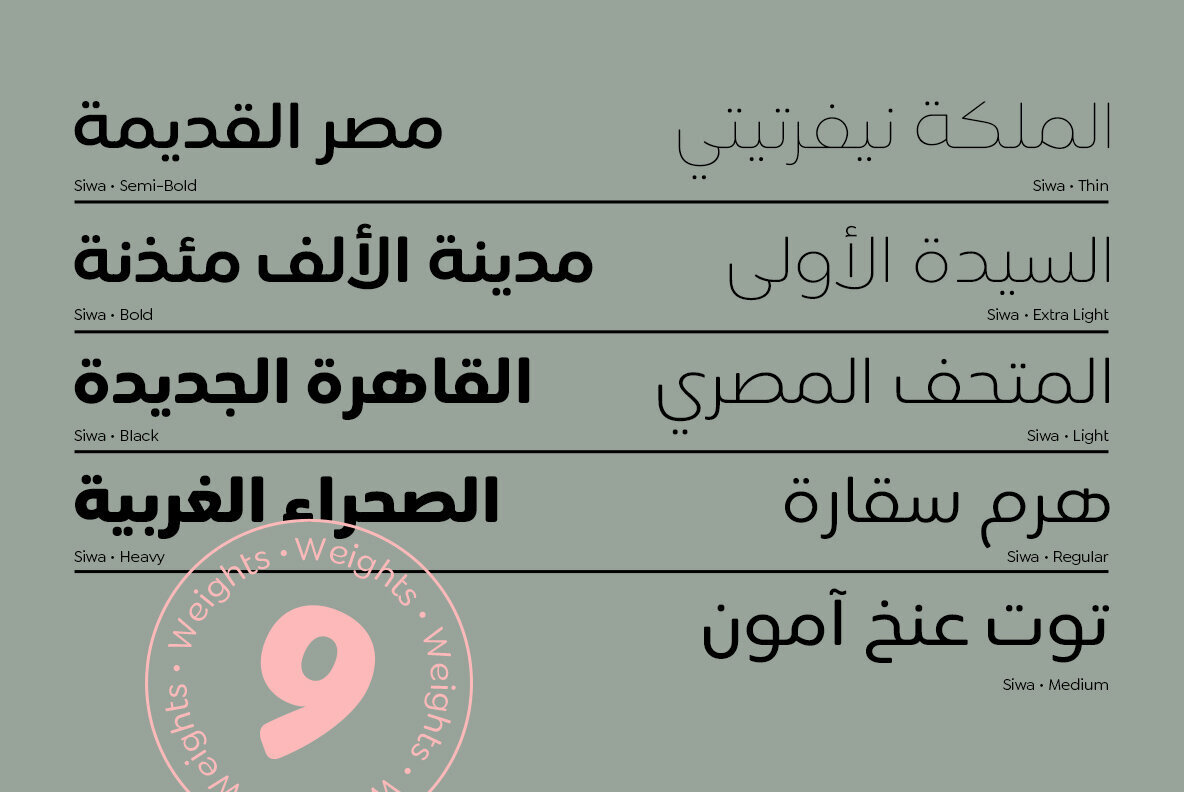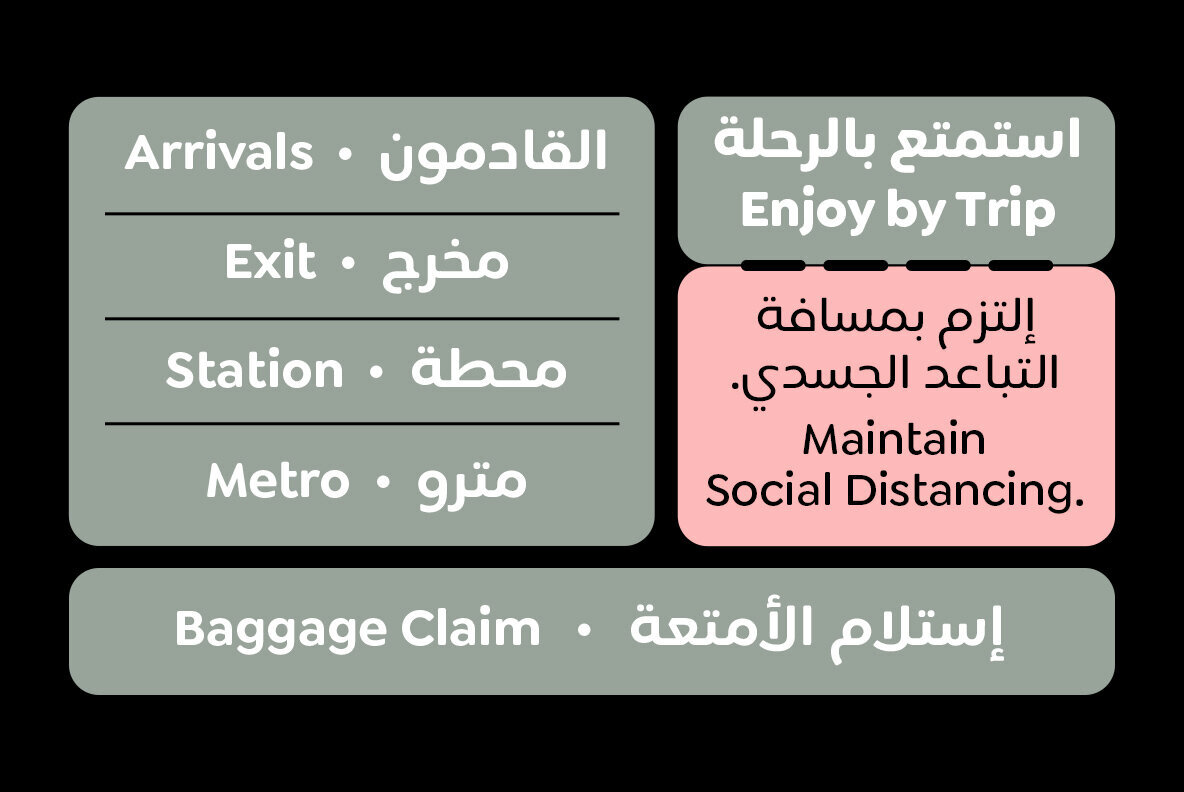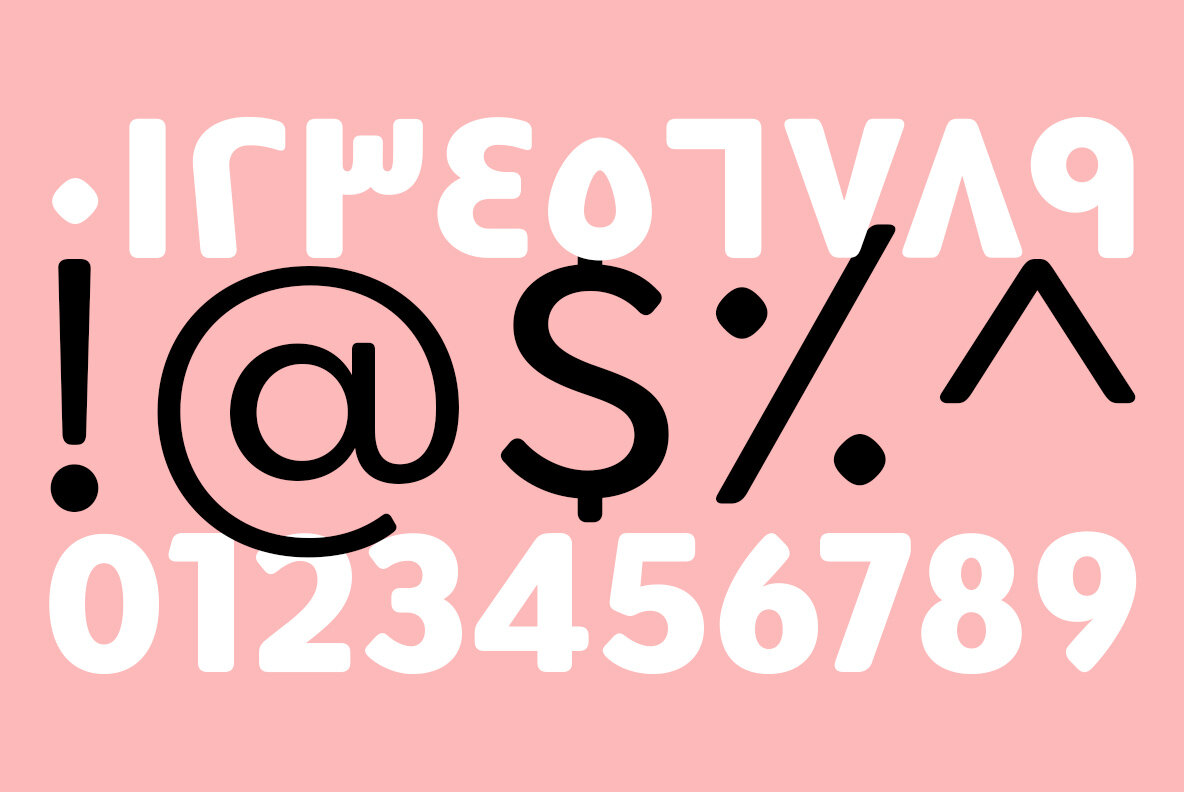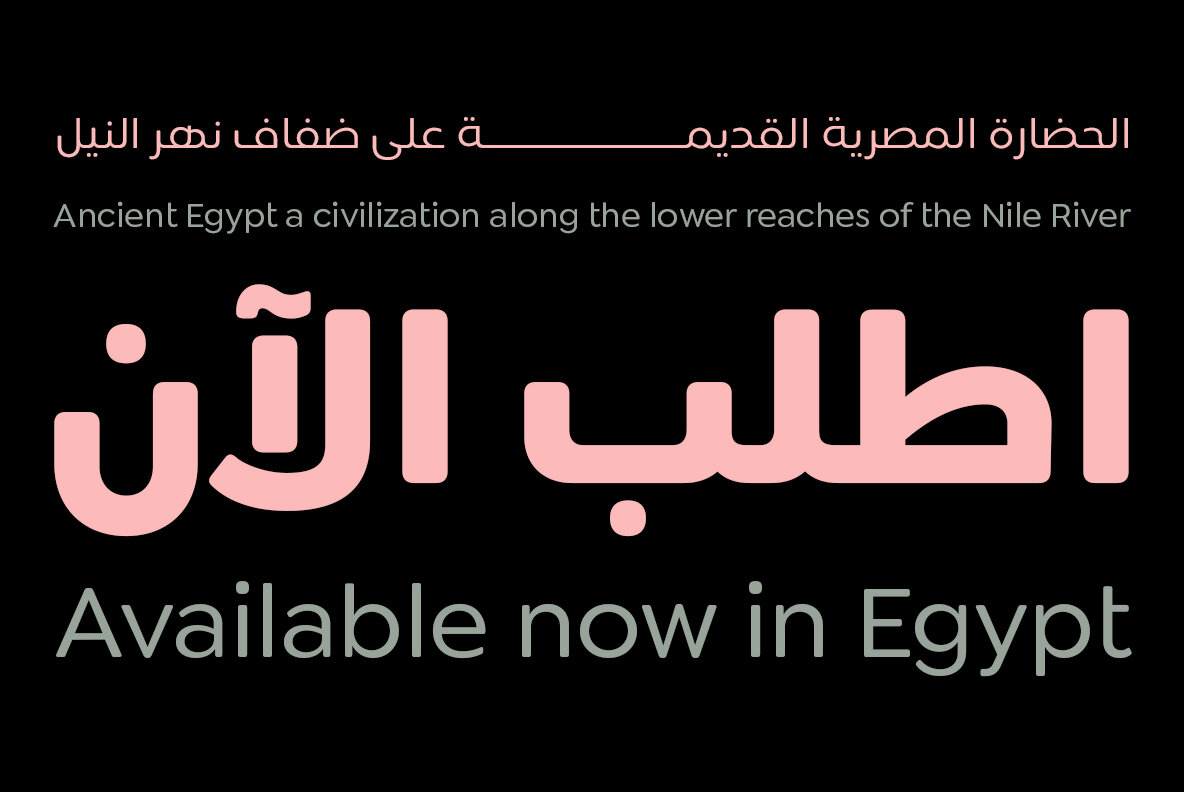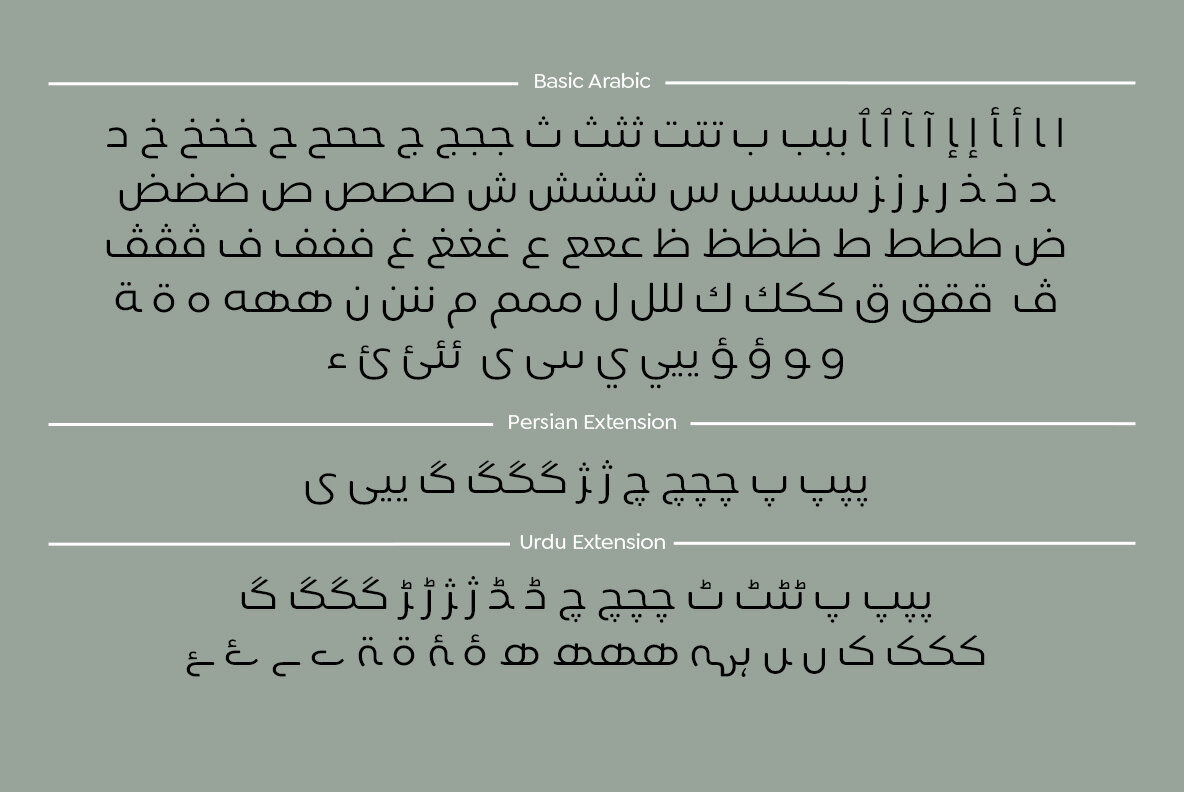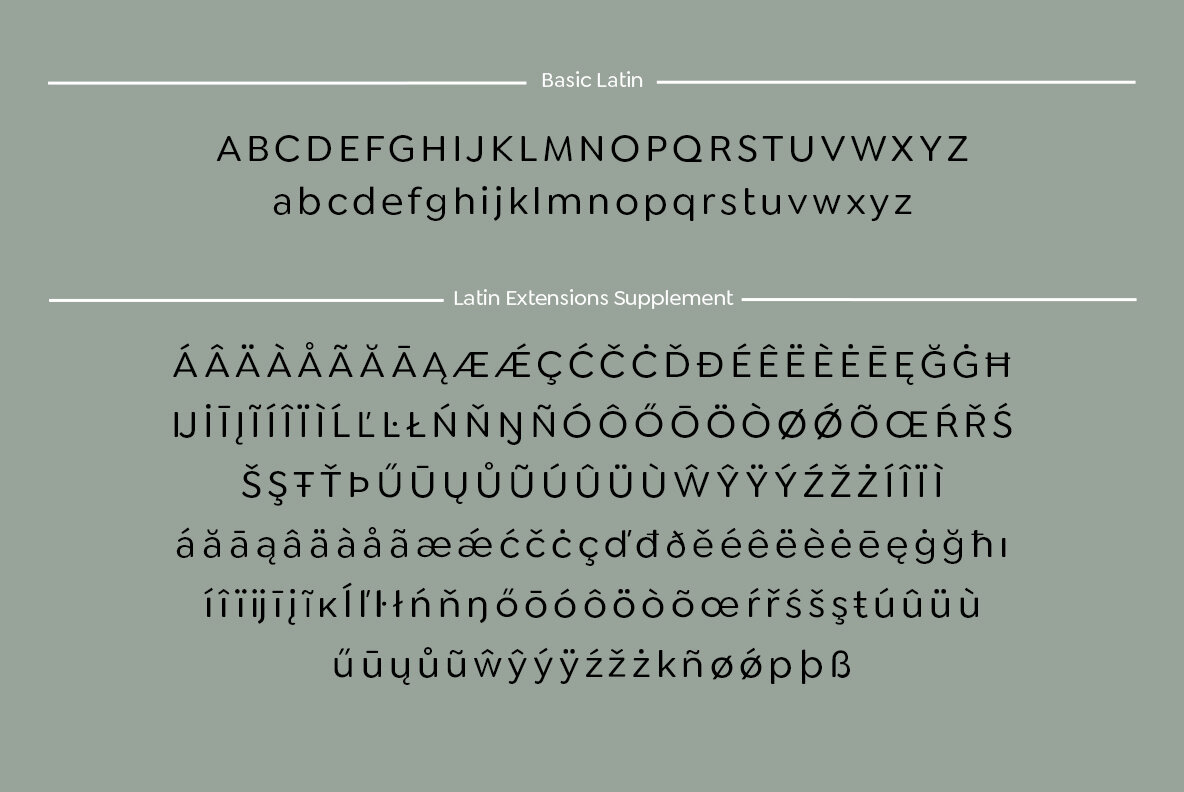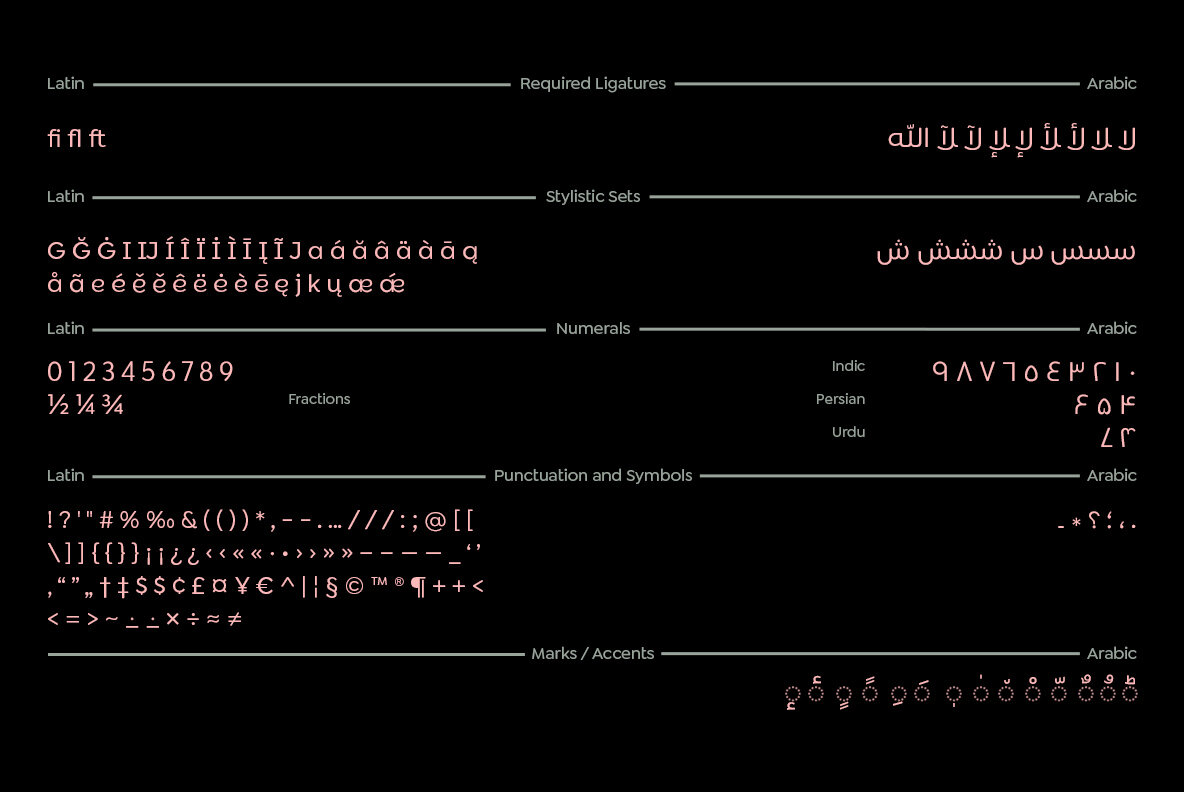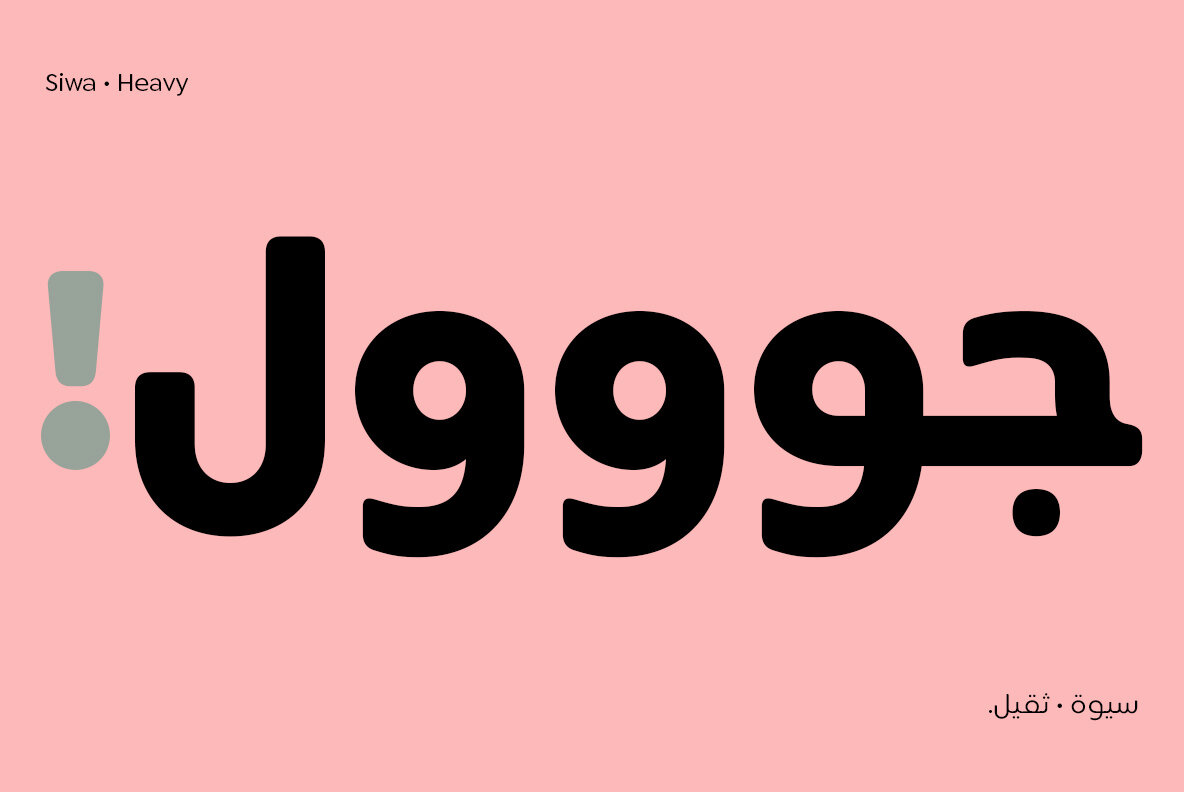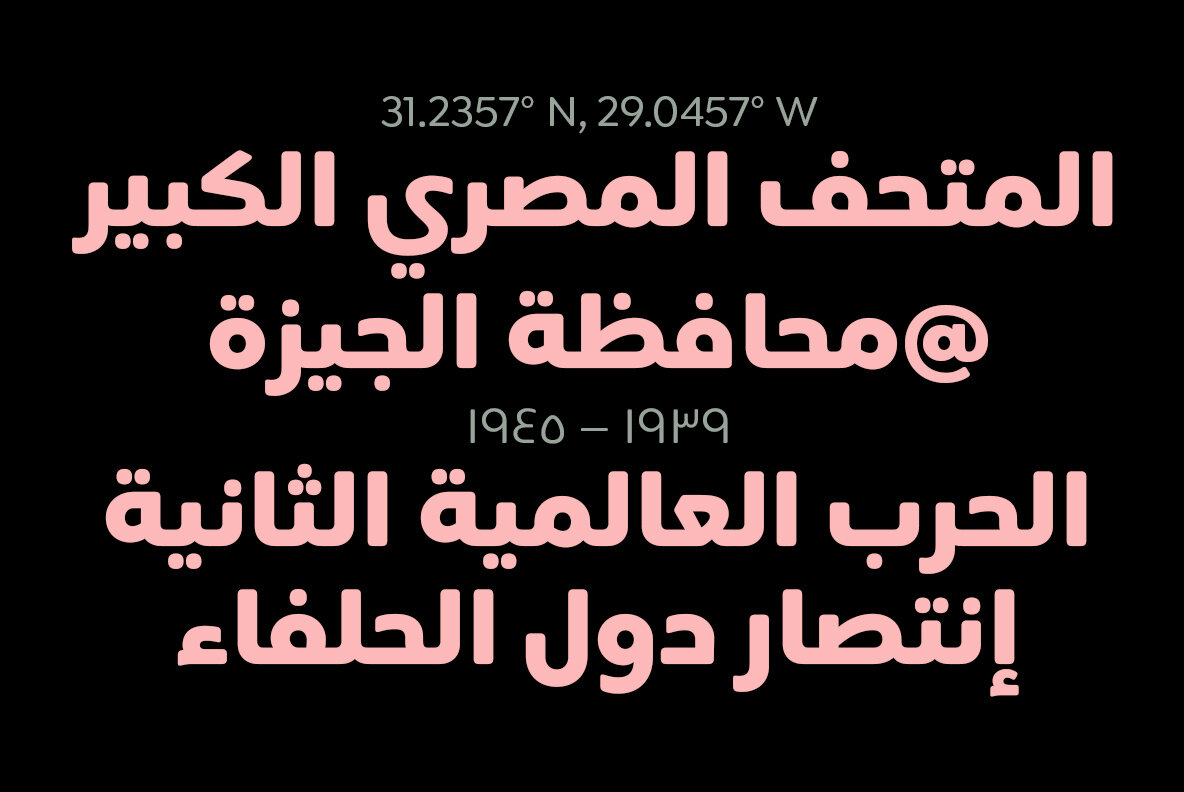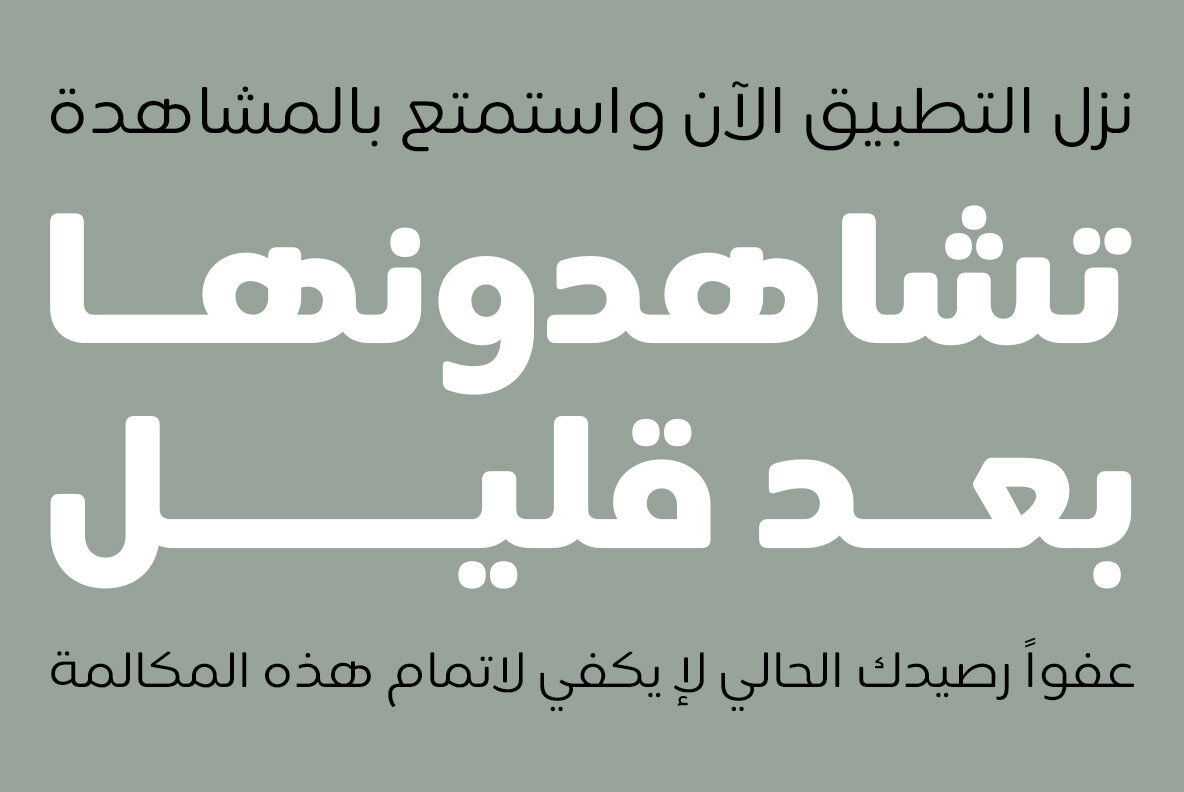
Siwa is a multilingual typeface created for the screens and general daily uses with a simple timeless geometric yet modern design to merge the modern requirements with the traditional rules of calligraphy. Comes with nine weights from thin to black, and supports the OpenType feature for more than 90 languages, includes all the languages that are based on Latin and Arabic letters, also supports the Indian, Latin, Persian and Urdu numbers.